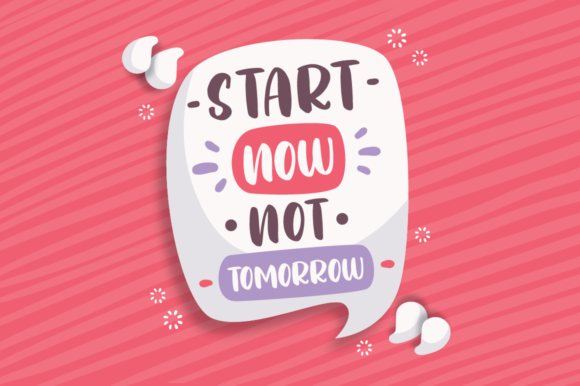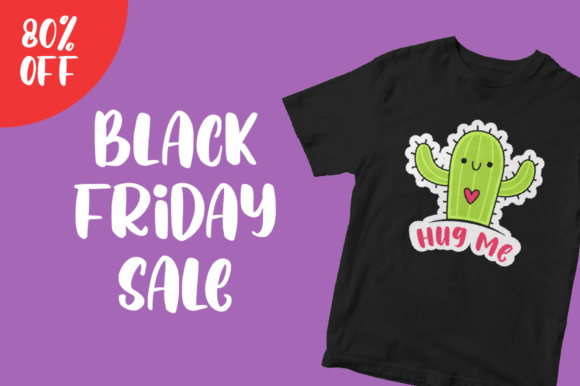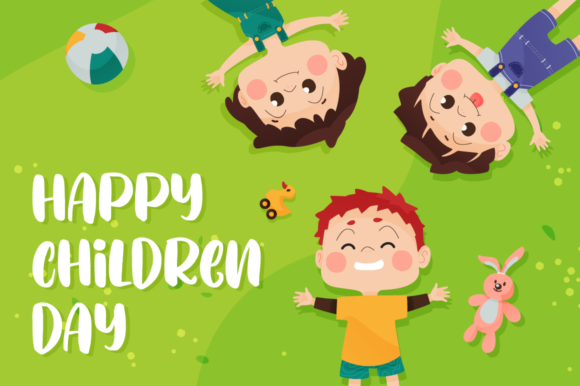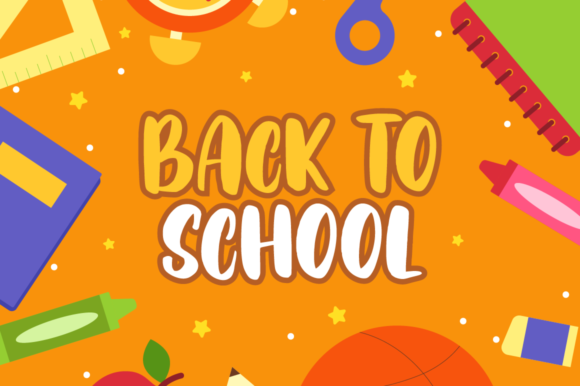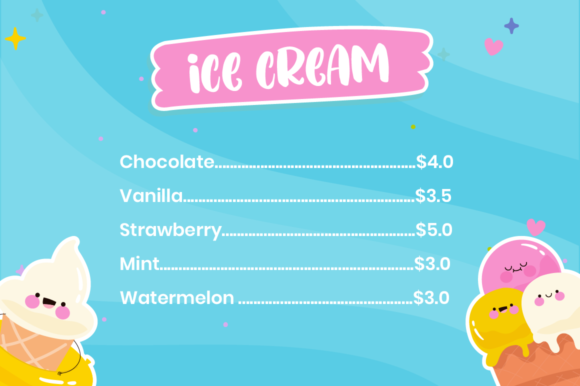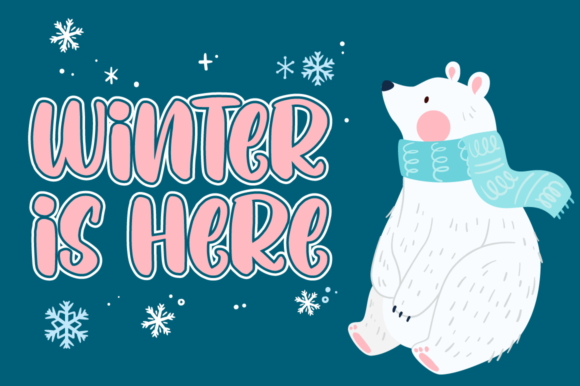
The Joy of Dobby Duke Font: A Designer’s New Best Friend
I’ll never forget the time I was working on a project for a children’s birthday party invitation. I had the design concept all sorted out, but I was stuck on finding the perfect font. That’s when I stumbled upon Dobby Duke Font, and it completely transformed my design. In this article, I’ll share my experience with this adorable font, its features, and how you can make the most of it in your designs.
An Honest Review of Dobby Duke Font
What I Love About Dobby Duke Font
- ✨ Cute and Playful: Dobby Duke Font is exactly what its name suggests – cute and playful. It’s perfect for designs that require a fun and joyful touch.
- ✅ Highly Versatile: This font can be used for a wide range of design projects, from party invitations to social media graphics, and even branding materials.
- 💡 Easy to Read: Despite its playful nature, Dobby Duke Font is surprisingly easy to read, making it perfect for headlines and titles.
While Dobby Duke Font is an amazing addition to any design, there are a few things to keep in mind:
- 🤔 Limited Use in Body Text: Due to its playful nature, Dobby Duke Font might not be the best choice for body text, especially in longer paragraphs.
- ⚠️ Not Suitable for Formal Designs: This font is best suited for informal and playful designs. It might not be the best fit for formal or professional projects.
The Backstory of Dobby Duke Font
Dobby Duke Font was created with the intention of bringing joy and playfulness to designs. Its creator wanted to craft a font that would evoke a sense of happiness and whimsy, perfect for designs that require a fun and youthful touch. While the actual story behind the font’s creation might be fictional, its impact on designs is undeniable.
Q: What type of designs is Dobby Duke Font best suited for?
A: Dobby Duke Font is perfect for informal and playful designs, such as party invitations, social media graphics, and branding materials.
Q: Is Dobby Duke Font easy to read?
A: Yes, despite its playful nature, Dobby Duke Font is surprisingly easy to read, making it perfect for headlines and titles.